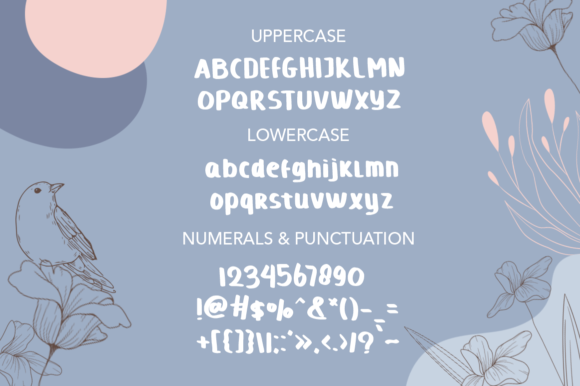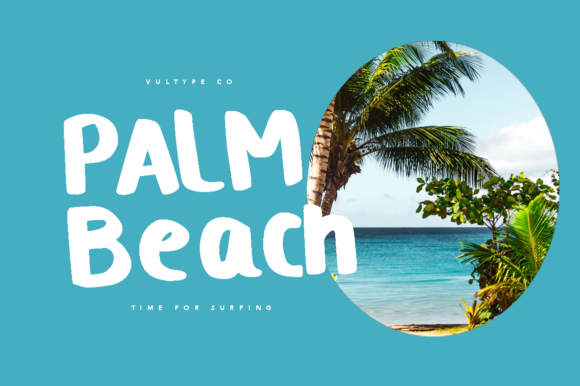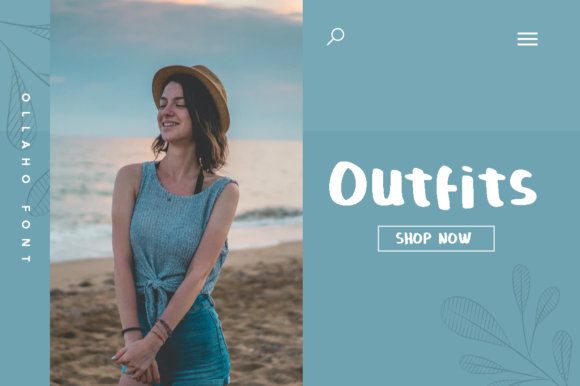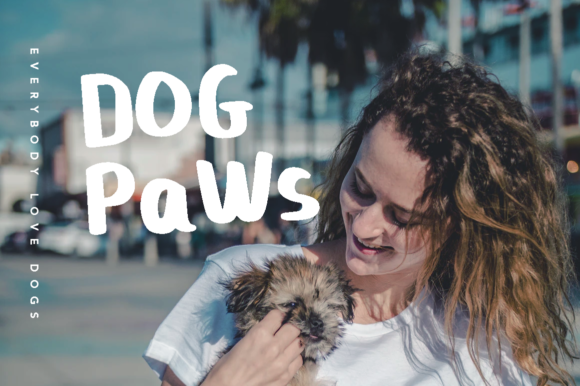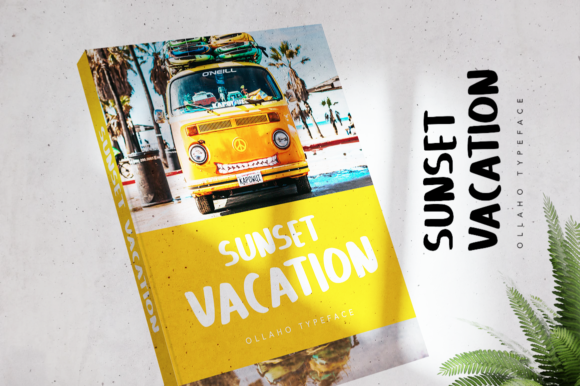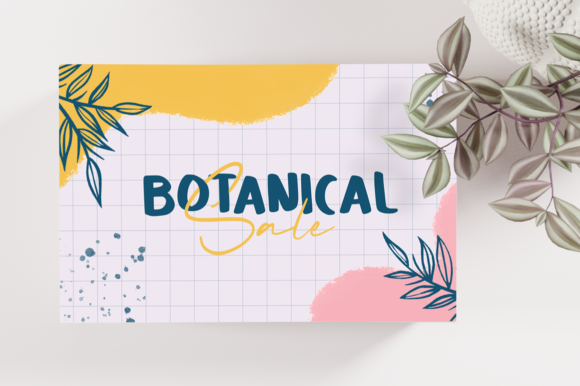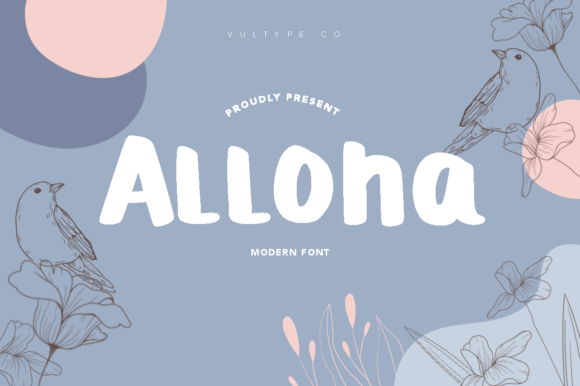
Introducing Alloha Font: The Cute, Bubbly, and Friendly Display Font You Need
Are you tired of using the same old fonts in your designs? Do you want to add a touch of playfulness and friendliness to your creations? Look no further than Alloha Font! This adorable display font is perfect for designers and crafters who want to make a statement with their work. In this article, we’ll dive into the world of Alloha Font and explore its features, benefits, and uses.
What is Alloha Font?
Alloha Font is a cute, bubbly, and friendly display font that’s designed to add a touch of whimsy to your designs. With its rounded edges and soft curves, this font is sure to capture the attention of your audience. Whether you’re working on a logo, a poster, or a social media graphic, Alloha Font is the perfect choice for anyone who wants to make a statement.
Features of Alloha Font
So, what makes Alloha Font so special? Here are just a few of its key features:
• Cute and playful design: Alloha Font has a unique and adorable design that’s sure to bring a smile to your face.
• High-quality characters: Each character in Alloha Font is carefully crafted to ensure that it’s clear and legible, even at large sizes.
• Multilingual support: Alloha Font supports multiple languages, making it a great choice for designers who work with international clients.
• Easily customizable: With Alloha Font, you can easily adjust the size, color, and style to fit your design needs.
Benefits of Using Alloha Font
So, why should you choose Alloha Font for your next design project? Here are just a few benefits of using this amazing font:
• Adds a touch of personality: Alloha Font is the perfect way to add a touch of personality to your designs and make them stand out from the crowd.
• Increases engagement: With its playful and friendly design, Alloha Font is sure to capture the attention of your audience and keep them engaged.
• Perfect for branding: Alloha Font is a great choice for branding projects, as it’s fun, modern, and memorable.
Uses of Alloha Font
So, what can you use Alloha Font for? The possibilities are endless! Here are just a few ideas to get you started:
• Logos and branding: Alloha Font is a great choice for logos and branding projects, as it’s fun, modern, and memorable.
• Posters and flyers: Add a touch of whimsy to your posters and flyers with Alloha Font.
• Social media graphics: Alloha Font is perfect for social media graphics, as it’s eye-catching and engaging.
• Invitations and cards: Use Alloha Font to create adorable invitations and cards for special occasions.
In conclusion, Alloha Font is a cute, bubbly, and friendly display font that’s perfect for designers and crafters who want to add a touch of whimsy to their creations. With its unique design, high-quality characters, and multilingual support, Alloha Font is the perfect choice for a wide range of design projects. So why not give it a try and see the amazing results for yourself?